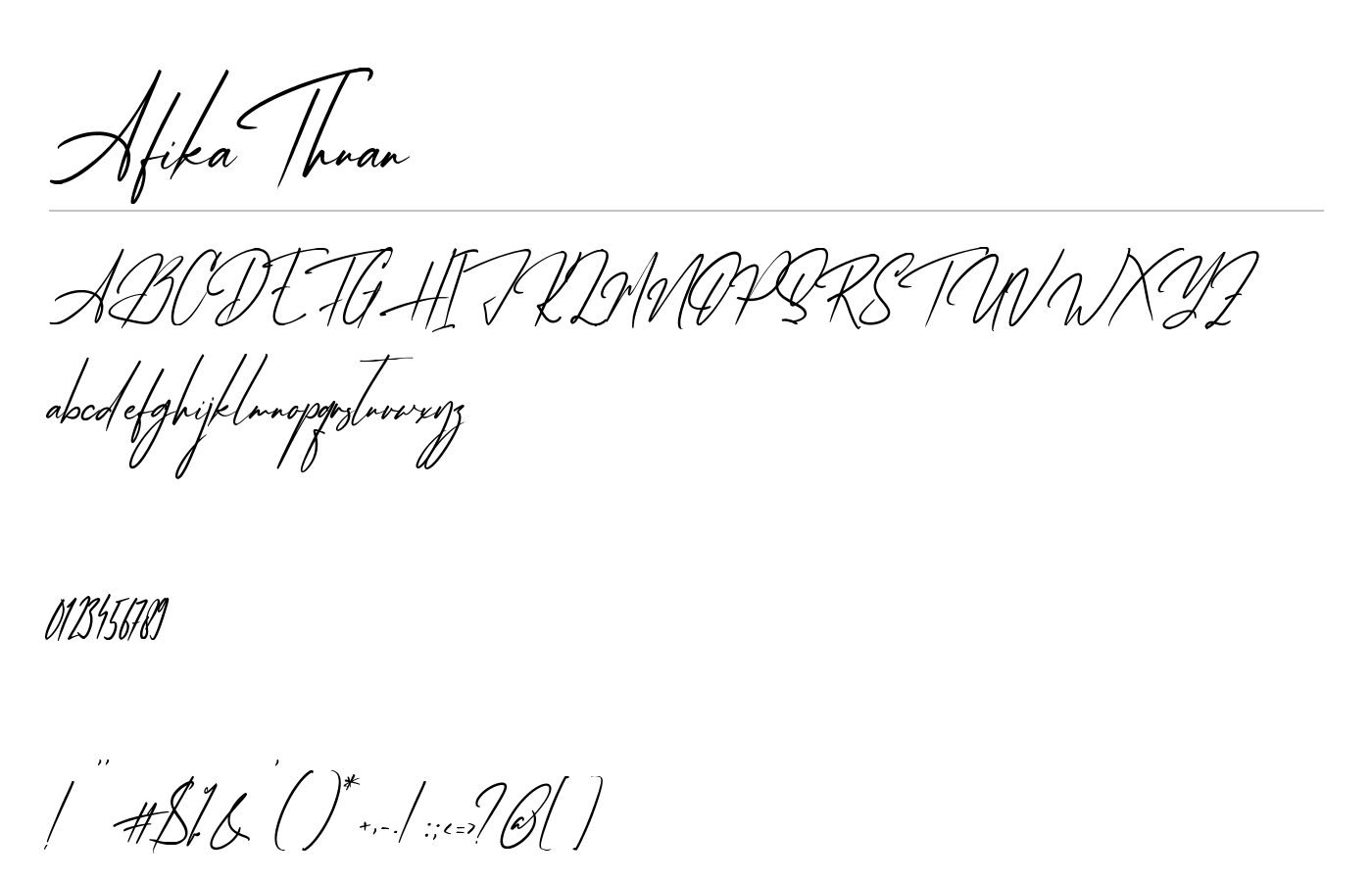
AfikaThuan is an elegant, handwritten script font with a delicate and flowing character. Its thin strokes and tall, slender letterforms give it a sophisticated, airy feel, making it perfect for stylish branding, invitations, and creative projects that require a personal touch. This font works beautifully in logos and headlines where a graceful yet modern script can add charm and refinement.
AfikaThuan Font
About AfikaThuan Font